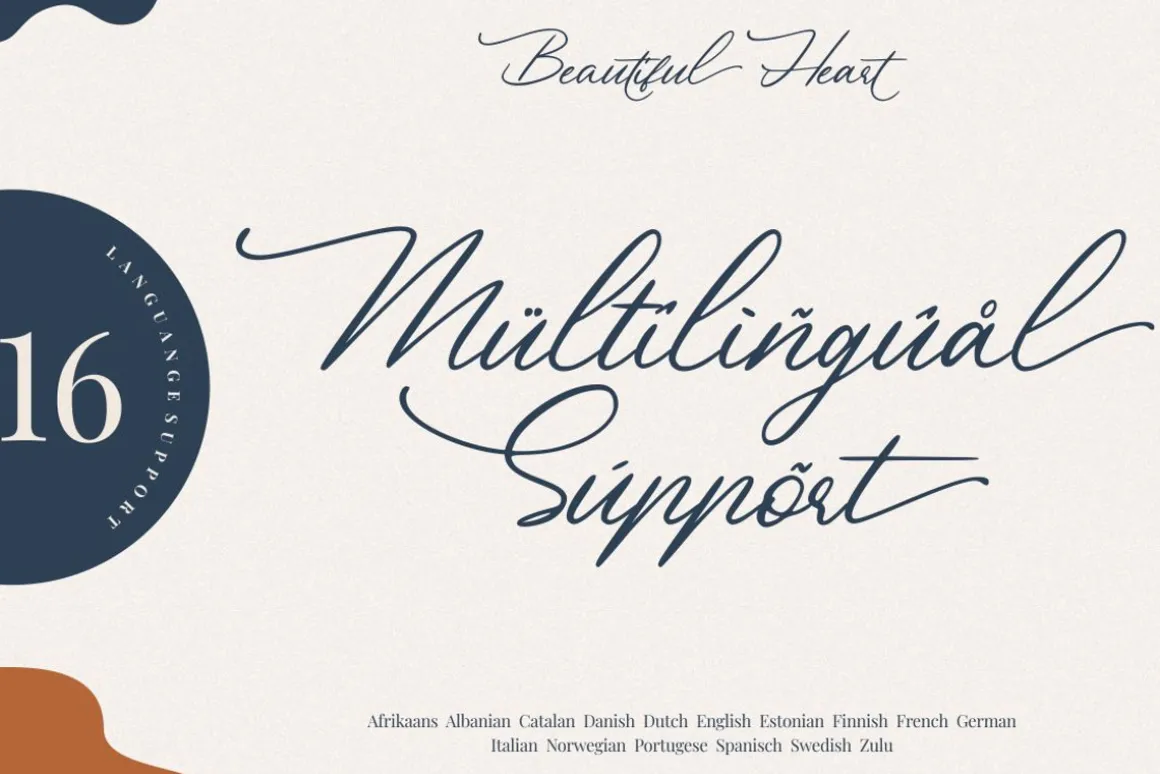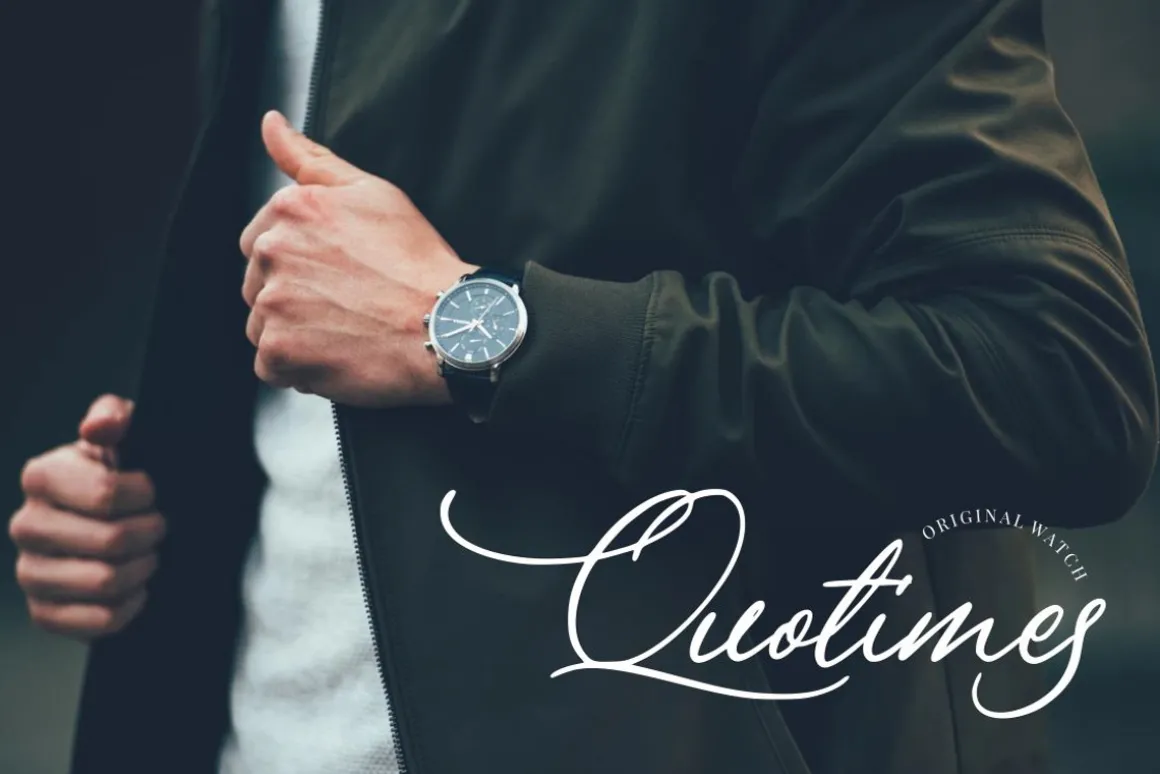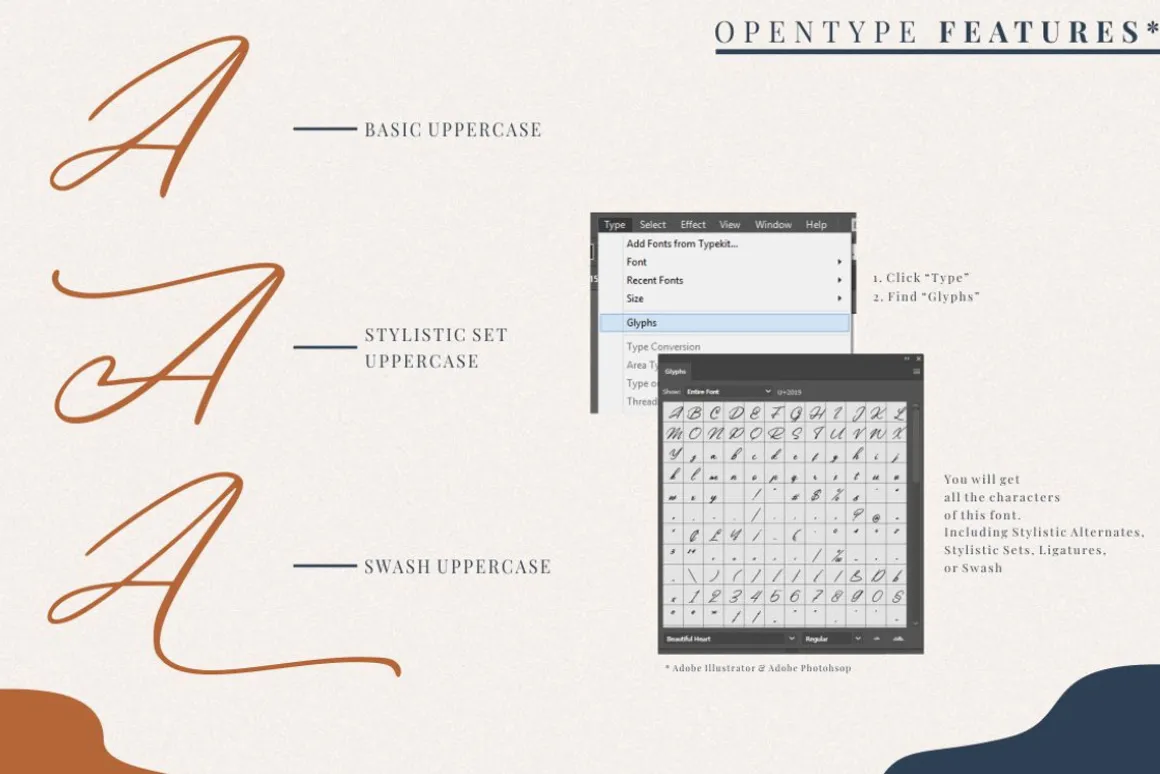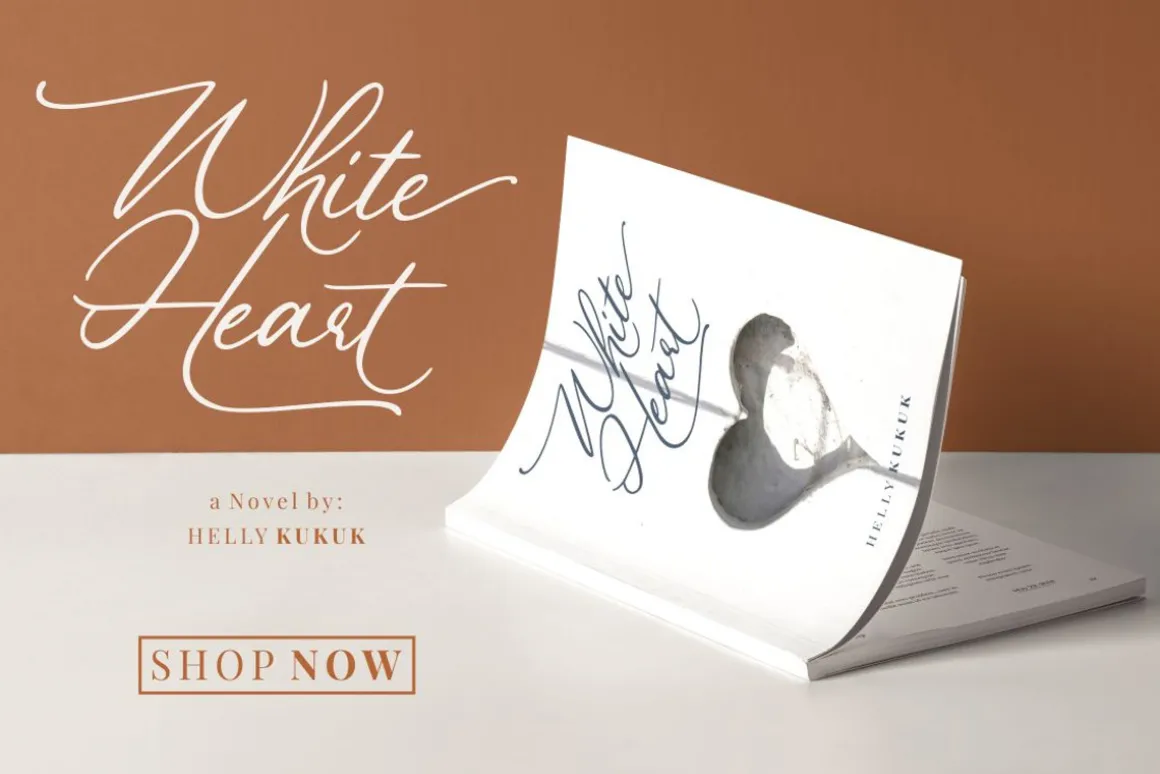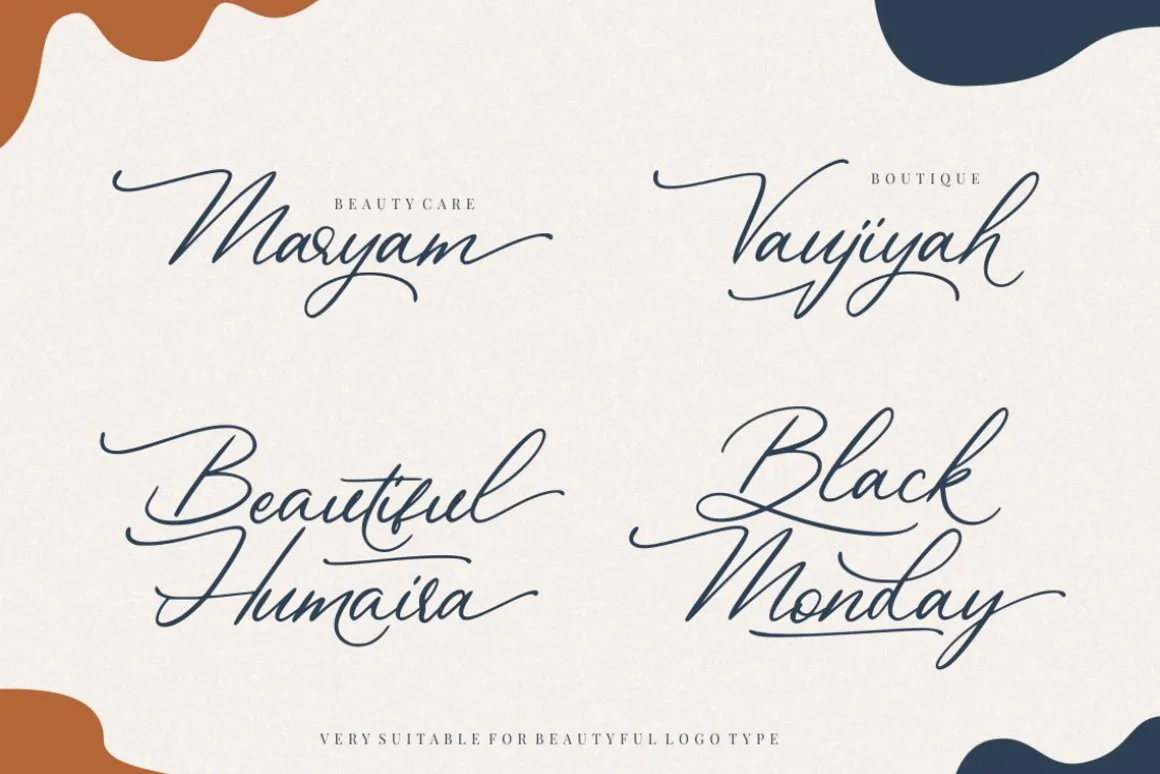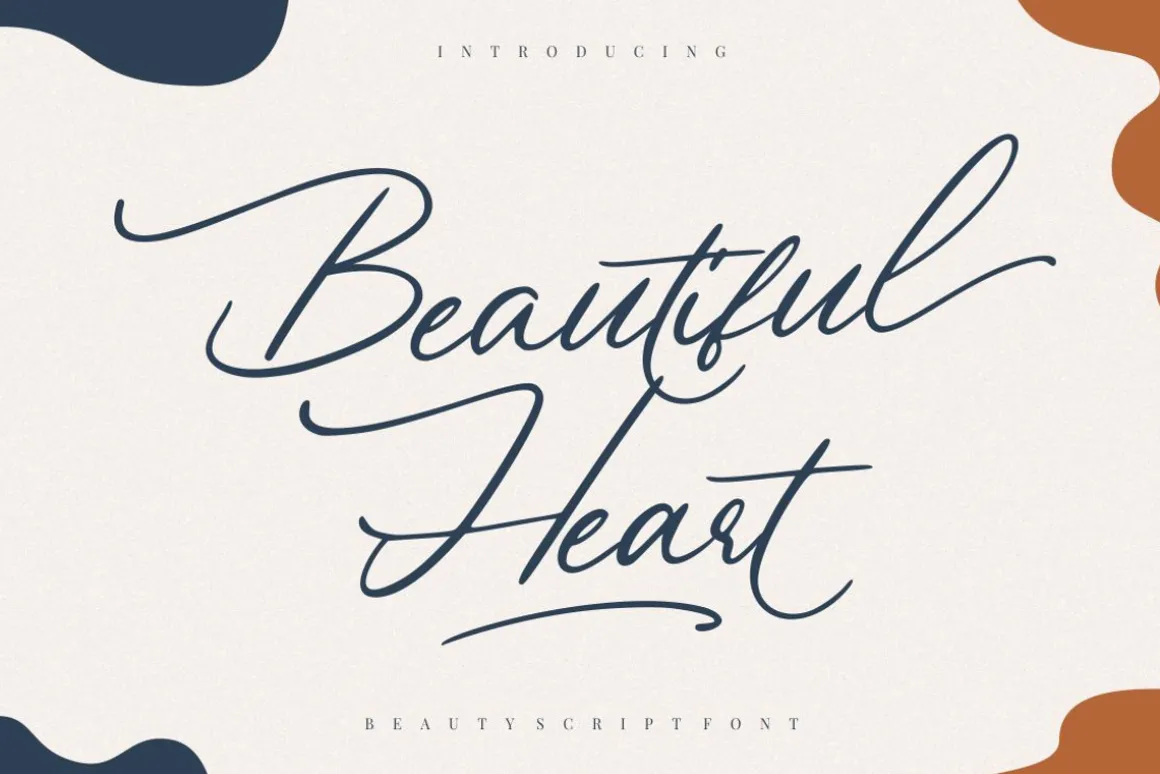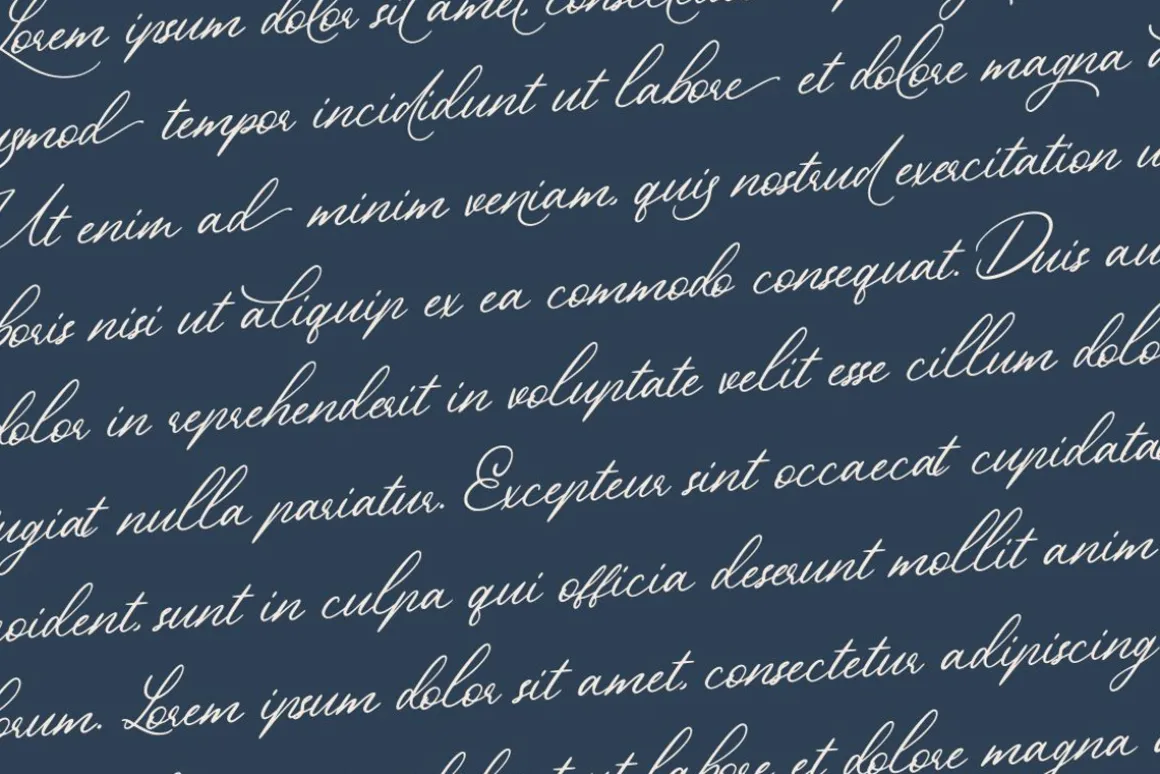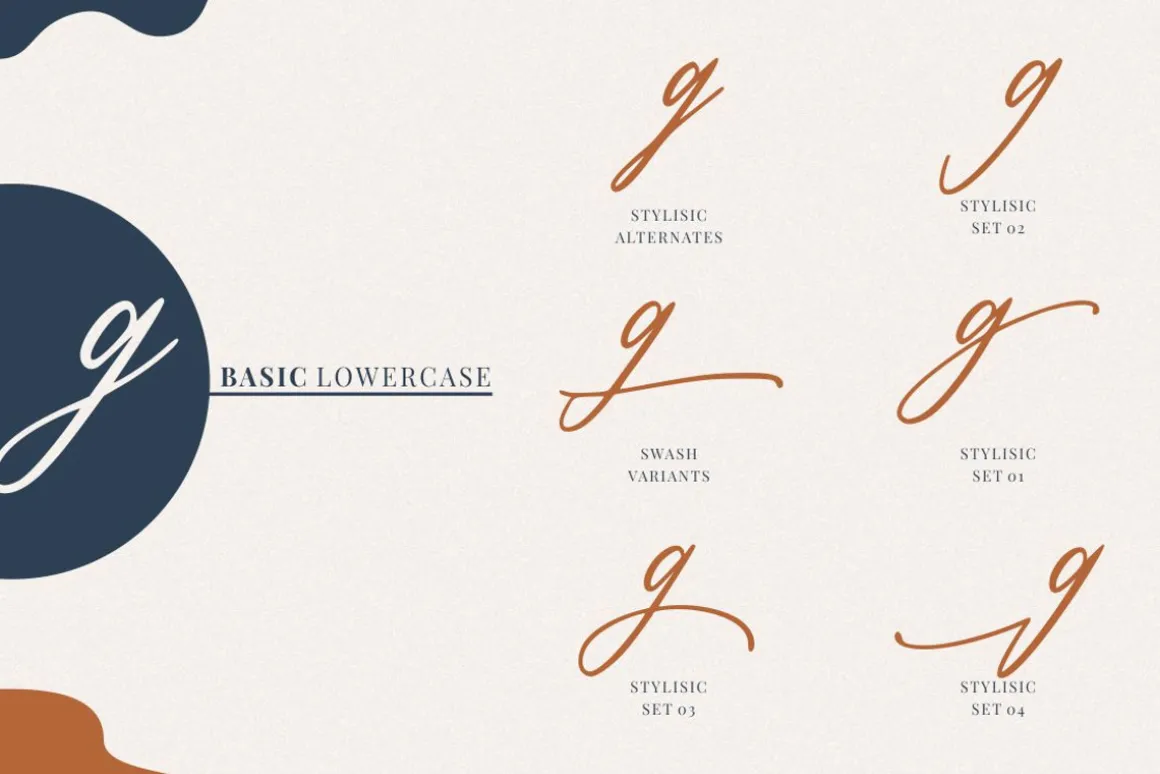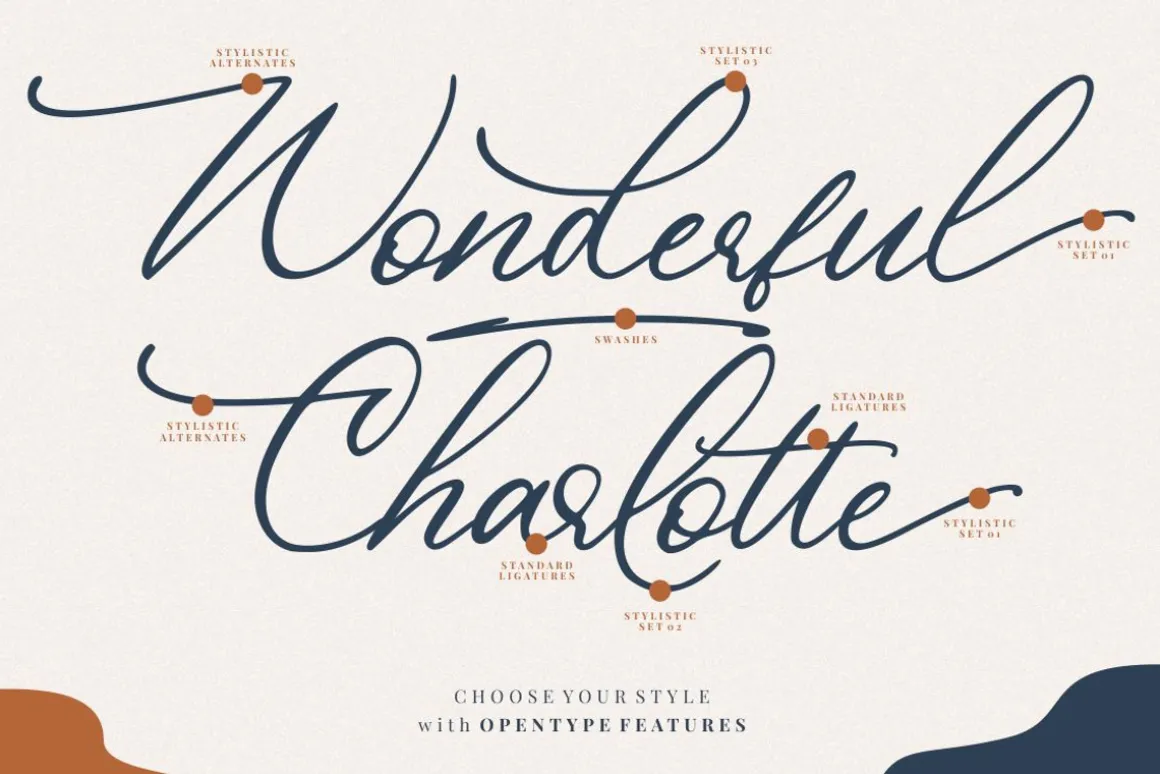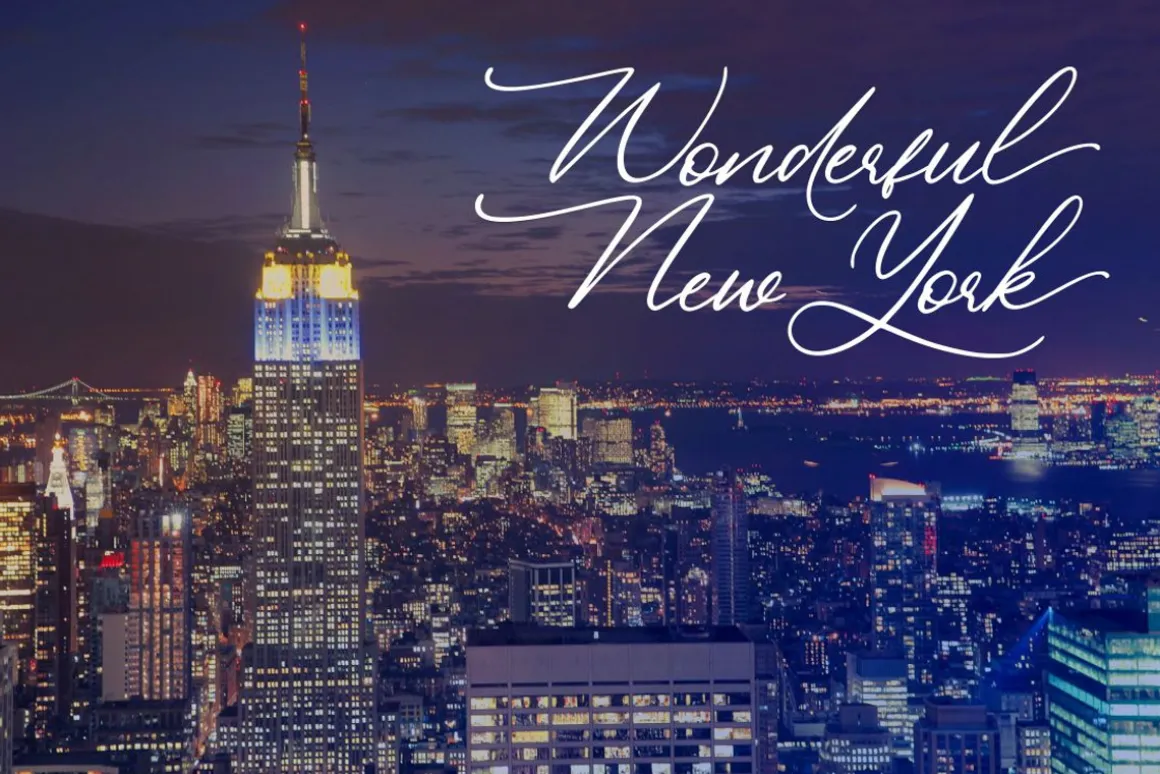
Introducing Beautiful Heart
Beautiful Heart is a calligraphy script font, this font Is perfect for logo, invitation, stationery, wedding designs, social media posts, advertisements, product packaging, product designs, label, photography, watermark, special events or anything.
Beautiful Heart comes with full set of uppercase and lowercase letters, multilingual symbols, numerals, punctuation.
- Ligature
- Stylistic Alternates, Stylistic Sets, and Swashes
- Natural brush touch